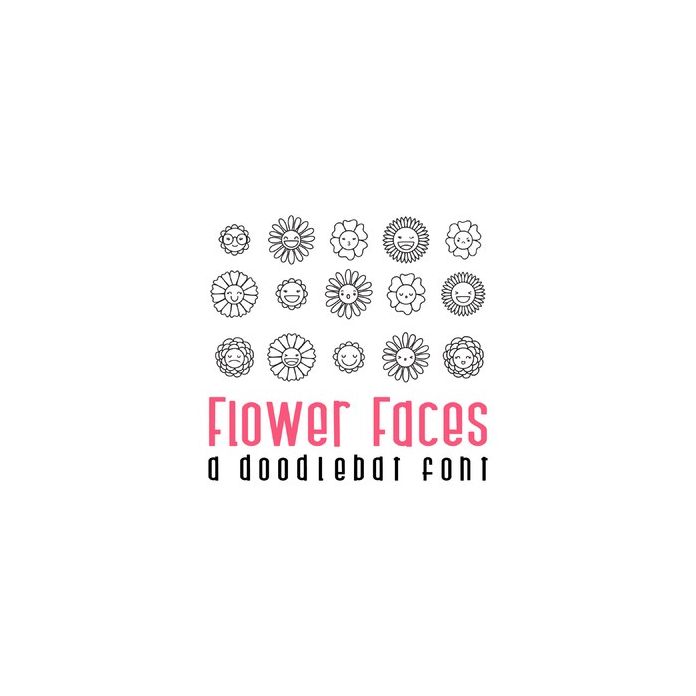
This fun doodlebat font features 26 fun flower faced icons. These flower emojis are perfect for cards, gifts, decor, crafts, scrap book pages, planner stickers and more!